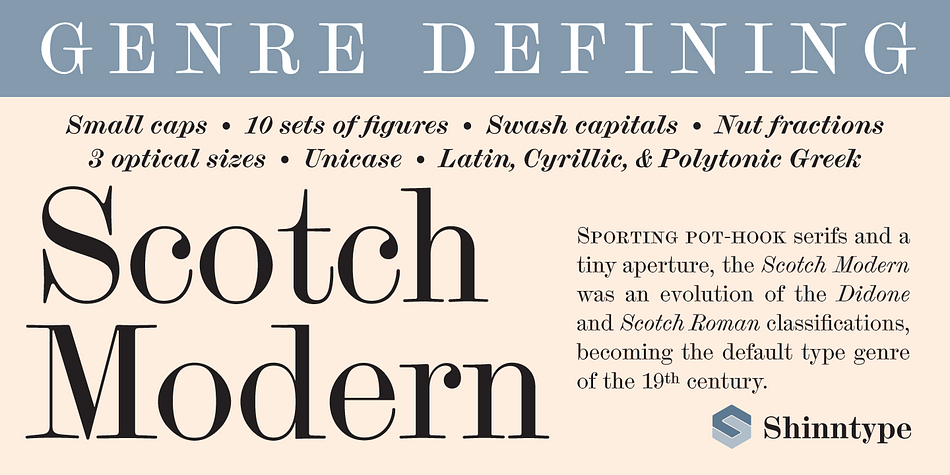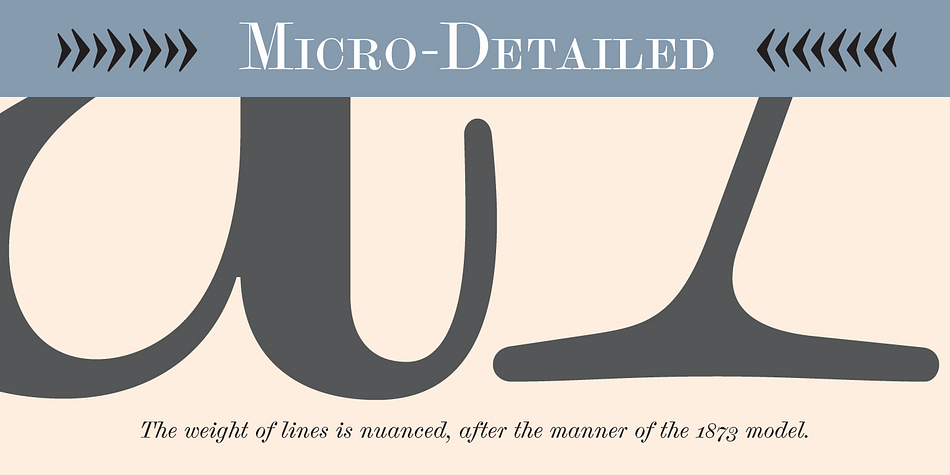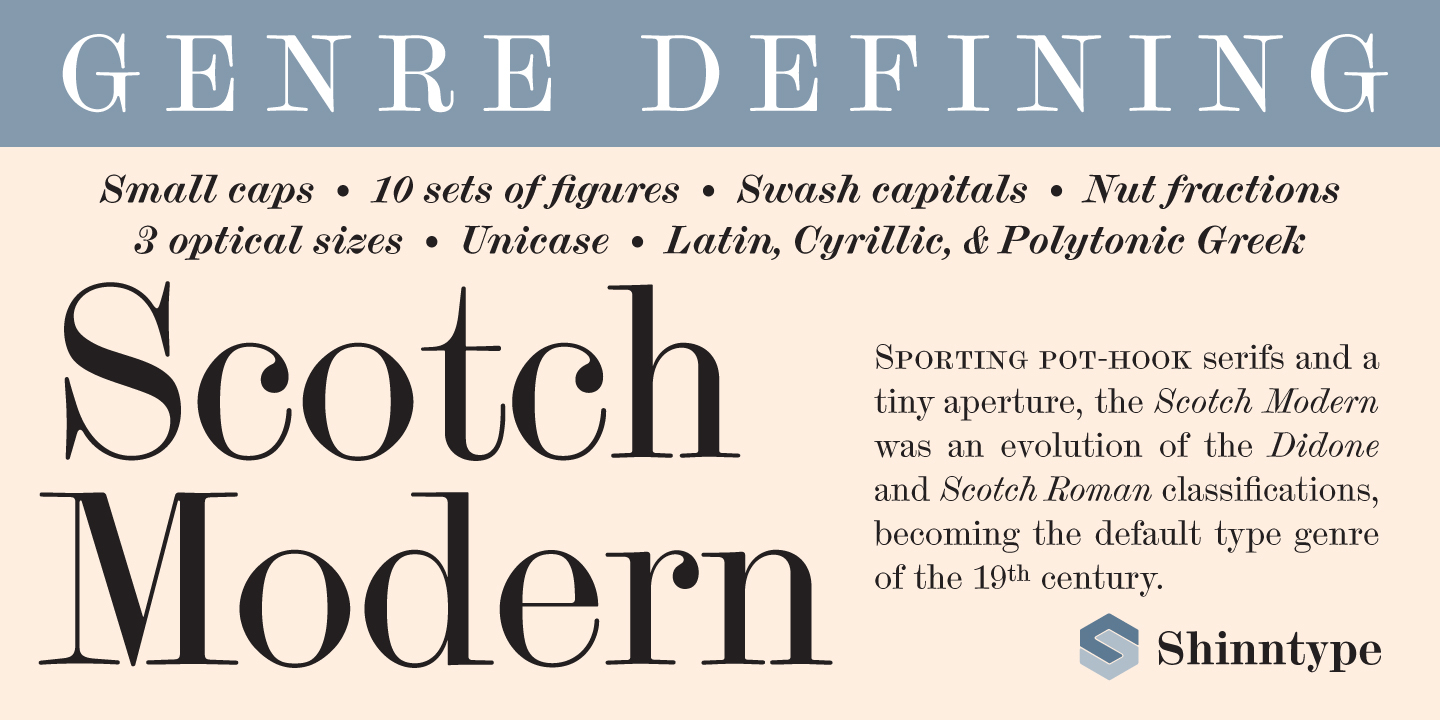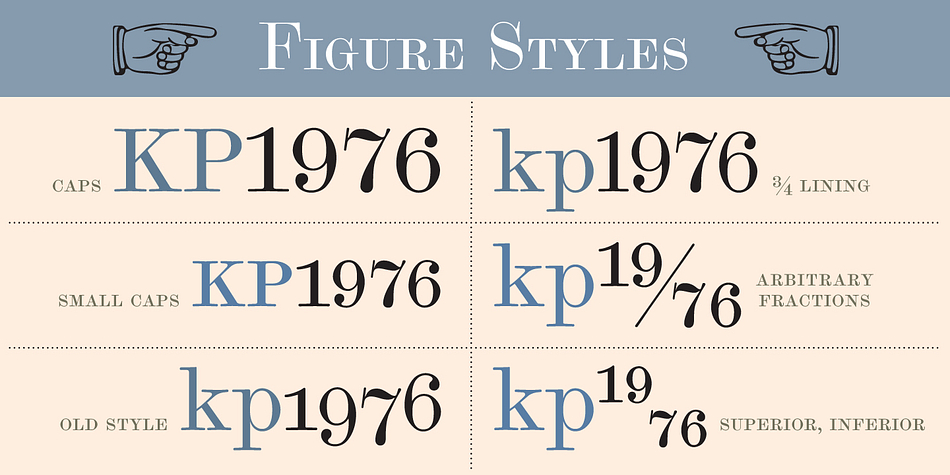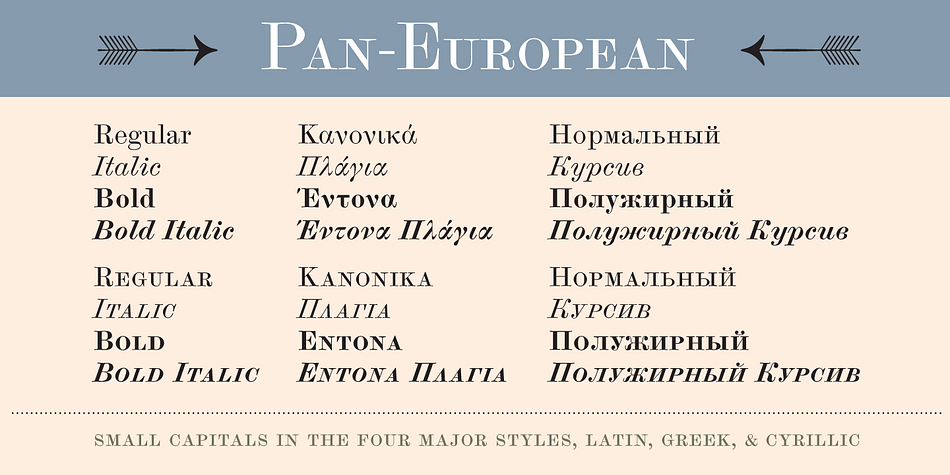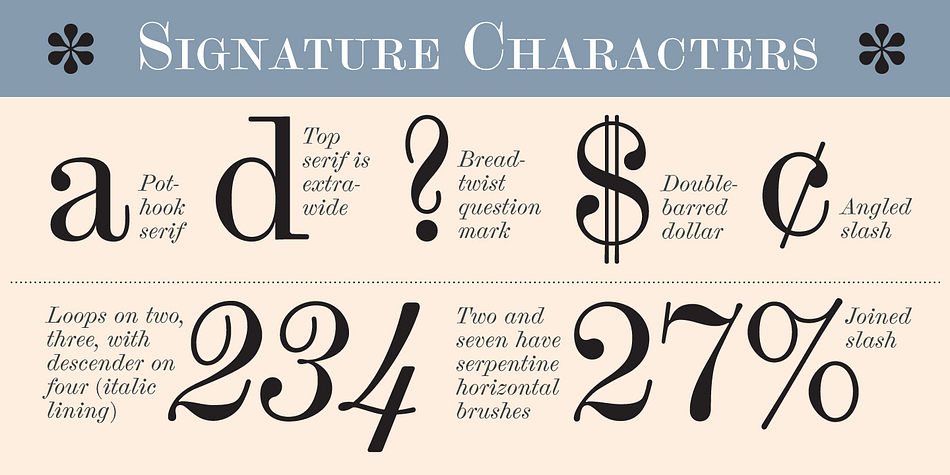
Scotch Modern is a serif font family. This typeface has nine styles and was published by Shinntype.
Recontextualizing the 10-point type of a scientific report published in 1870, Shinn has produced sleekly refined, micro-detailed vector drawings by eye, without the assistance of scans for tracing, thus presenting an ironic critique of the way in which mechanical imagery beguiles us with the trite veracity of simulacra.